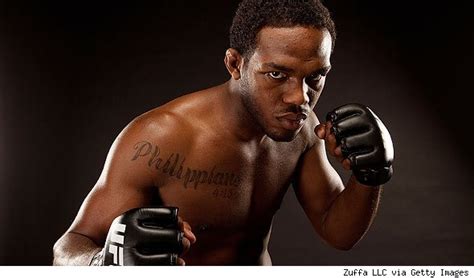
Decoding Jon Jones' Philippians Tattoo: Font & Meaning
Decoding Jon Jones’ Philippians Tattoo: Font & Meaning
Hey fight fans, ever wondered about the ink adorning the body of UFC legend Jon Jones? Well, today we’re diving deep into one of his most prominent tattoos: the Philippians scripture. Not just the words, but the font itself, the placement, and of course, the profound meaning behind it all. So, grab a seat, maybe a protein shake, and let’s get into the world of “Bones” and his body art. We’re going to break down the Jon Jones Philippians tattoo font , its significance, and why this particular biblical verse resonates with the champ. This is going to be epic, guys!
Unveiling the Scripture: Philippians 4:13
Alright, let’s start with the basics. The Philippians tattoo on Jon Jones’ body features the famous verse, Philippians 4:13 . You might have heard it before; it’s practically a staple in the world of faith and motivation. The scripture reads: “I can do all things through Christ who strengthens me.” Boom! Right there, you’ve got a powerhouse of a statement. It’s a declaration of strength, resilience, and unwavering belief in a higher power. It’s the kind of verse that athletes, especially those in a brutal sport like MMA, often cling to. For Jon Jones, this verse isn’t just a random quote; it’s a core principle guiding his life and career. He carries it with him, quite literally, wherever he goes.
Now, let’s talk about the context. The Book of Philippians, written by the Apostle Paul, is a letter of joy and encouragement. Paul wrote it while imprisoned, which gives the verse an even deeper meaning. It’s not just about physical strength; it’s about the ability to overcome adversity with faith and grace. This resonates perfectly with Jones’ journey. He’s faced incredible highs and lows throughout his career, including legal issues and personal demons that have tested him relentlessly. The verse serves as a constant reminder that he can persevere, no matter the obstacle. That’s a powerful message, and it’s something that his fans also take as a source of motivation. Seeing the Jon Jones Philippians tattoo font reinforces his commitment to faith, which is an important aspect of his public persona. The font is an important component of the message he is trying to portray to his fans and the world.
The Significance of Philippians 4:13
Let’s get even deeper into this. The verse is a testament to the belief that through faith, anything is possible. It’s a message of empowerment, telling believers that they have the strength within them to overcome any challenge. For an athlete like Jon Jones, this is more than just a biblical quote. It becomes a mantra, a source of unwavering belief in his abilities, even when faced with adversity. The verse reminds him that his strength is not solely dependent on his physical prowess, but also on his spiritual connection. Think about it: a fighter steps into the octagon, a place of intense pressure, where careers can be made or broken in a matter of minutes. The mindset required to compete at that level is extraordinary. This verse gives him the mental fortitude to push through, to keep going, even when he’s exhausted or hurt. It reinforces his belief in himself and his ability to achieve his goals. It is a symbol of strength.
This isn’t just about winning fights. It’s about personal growth. It’s about facing your demons, both inside and outside the ring. It’s about maintaining faith in the face of challenges. The Jon Jones Philippians tattoo font and verse become a constant reminder of these principles. It is a symbol that he carries with him, and a message he shares with the world. It’s a testament to his resilience, his faith, and his dedication to self-improvement. It’s about the journey, the struggles, and the ultimate victory over adversity. This verse has resonated with many people, not just athletes. It is a testament to the fact that faith can move mountains.
Examining the Font: What Does it Say?
Now, let’s zoom in on the Jon Jones Philippians tattoo font . The specific typeface used for the tattoo is a crucial element in understanding the overall message. Unfortunately, the exact font has not been officially revealed, but we can make some observations. It appears to be a classic serif font , possibly with some slight modifications to give it a unique edge. Serif fonts, characterized by the small strokes at the ends of the letters, often convey a sense of tradition, strength, and timelessness. It’s a good choice, guys. It isn’t loud or flashy. It’s a clean, readable font that allows the message to take center stage. The style is clear, not overly stylized, ensuring that the words are easy to read and understand. This choice of font reflects the importance of the message itself. Jones isn’t trying to make a bold aesthetic statement; he’s emphasizing the scripture’s meaning. The clarity of the font ensures the verse’s accessibility. A fancy, elaborate font might be beautiful, but it could also distract from the profound message. This is not the case for Jon Jones Philippians tattoo font .
Think about it this way: the font is the messenger’s attire. It should be appropriate and convey respect for the message it carries. A simple, clean font does just that. It respects the sacred nature of the verse and allows the words to speak for themselves. The font also likely reflects Jones’ personal preference. He’s a man who values substance over style. He’s about what the words say , and not just what they look like. This simple approach speaks volumes about his character. It’s a way of saying, “This is what matters.” The verse’s impact is not diminished by the font. Instead, the font complements the message, making it clear and impactful.
Font Characteristics and Interpretations
Let’s break down some of the font’s potential characteristics. The use of a serif font itself suggests a connection to tradition and a grounding in core values. The boldness of the font (or lack thereof) influences how the message is received. A slightly bolder font may indicate a strong conviction. The spacing between the letters is also essential. Well-spaced letters improve readability, while also lending an air of formality. The Jon Jones Philippians tattoo font is meant to be easily legible and have a timeless appeal. It’s a classic choice. While it’s not possible to definitively determine the precise font used without consulting the tattoo artist, the general characteristics provide valuable insight into the overall message Jones aims to convey. The font choices often reveal someone’s intention. The choice of a classic font also speaks to Jones’ character. He’s a fighter, but he is also a person of faith, grounded in traditional values. This reflects his journey and provides motivation for his fans. The simple font choice doesn’t distract. Instead, it invites the reader to focus on the text itself. The words are key, and the font is simply a vehicle. It’s not just about the look; it’s about the meaning. It is a statement.
Placement and Significance: Where Does it Sit?
Okay, so we know the verse and the font. Now, let’s talk about where this tattoo actually sits on Jon Jones’ body and why that location is significant. The specific placement of a tattoo is almost as important as the message itself. It says something about what a person wants the world to see, and also what they want to keep close. The exact location of the tattoo is also important. The Jon Jones Philippians tattoo font is typically placed in a spot that is frequently visible. The choice of location often amplifies the message, making it more personal and significant. It’s about ensuring the verse is always in sight. It’s a constant reminder of his faith and source of strength. The location is more than just an aesthetic choice; it’s an active decision. He is always seeing it. The tattoo location is a deliberate choice.
More specifically, the Philippians 4:13 tattoo is often located on his chest or shoulder. This placement is strategic for several reasons. First, it’s a visible location. It’s a statement, meant to be seen. Second, the chest area is close to the heart, symbolizing that this verse is a core belief. It is a direct reflection of Jones’ heart and soul. The shoulder placement offers a similar level of visibility. It also underscores the importance of the scripture in his life. Both are positions that are easily seen by himself and others. This means the message is always in his awareness. The placement choice also highlights its importance. It’s a way of saying: “This is something I want to carry with me always.” It reinforces the impact the verse has on his life and career. This choice is not accidental. The placement of the Jon Jones Philippians tattoo font is important. It reveals how highly Jones values the message of strength. The location is an active statement.
Placement and Personal Meaning
Let’s get even deeper into the meaning behind the placement. The location of the tattoo is also a personal choice. It’s a physical reminder that is always there. It’s an easy visual prompt. When he’s in a fight, it’s there to remind him that he is strong through faith. It offers a sense of comfort and support. When he is outside the octagon, it’s a constant reminder of his goals. It’s a source of strength, even when he’s struggling with challenges. The Jon Jones Philippians tattoo font , placed in a prominent position, also signifies his commitment to his faith. It is a very public declaration. The tattoo is an everyday sign of his belief. The placement is designed to keep him focused. This serves as a source of strength and inspiration. His faith is a significant part of his identity. The tattoo is the embodiment of his values. This deliberate choice underlines his belief. It’s a way of expressing his faith outwardly.
The placement adds an extra layer of meaning to the verse. The location is not just about aesthetics; it’s about making a profound statement. It is a way of reminding himself of the promise of strength. It is a reminder of the message to him. This placement is a constant affirmation. It is something he can see every day. This deliberate placement offers encouragement. This is not a passive choice. The placement is significant and the message is clear. It reinforces his strength. The location is a constant statement to all.
Beyond the Octagon: The Broader Impact
Okay, so we’ve covered the verse, the font, and the placement. But let’s zoom out and consider the broader impact of the tattoo. The Jon Jones Philippians tattoo font does more than just represent his personal faith. It also has a powerful effect on his fans and the wider world. It inspires many. It has become a symbol of resilience, and it resonates with a wide audience. It transcends the sport. For his fans, the tattoo serves as a source of inspiration. It motivates them to overcome their own challenges. It shows that even in the face of adversity, it’s possible to find strength. It provides hope. It encourages faith. The tattoo is a symbol of faith for the world.
His openness about his faith makes him relatable. He demonstrates it through his actions, both inside and outside the ring. This is a very powerful message. It humanizes him. He is not just a fighter. He is a person who has struggled, grown, and found strength in his faith. This message resonates with many. It shows that there is hope. It is a source of strength. His tattoo is a declaration of faith. It extends to people of all backgrounds. It is a source of hope and encouragement. This message is accessible to everyone.
Inspiration and Motivation for Fans
For his fans, the Jon Jones Philippians tattoo font serves as a constant reminder of the possibility of overcoming any challenge. Seeing the tattoo inspires them to pursue their goals with unwavering determination. The tattoo helps his fans to be resilient. It reminds them that through faith, anything is possible. It’s more than just a tattoo; it’s a message of hope. The choice to display this particular verse is an act of vulnerability. It’s a way of sharing his core beliefs. His fans see him as more than a champion. They see him as a symbol of hope. It humanizes him. It’s an inspiration to those struggling. It’s a symbol of hope for others. It has a real impact on people. The tattoo is a beacon of positivity. It offers real motivation.
The verse and font choices have become symbols for the fans. They are a reminder of faith. It motivates them to keep going. The tattoo, and the Jon Jones Philippians tattoo font , are not just for him. They are shared with all his fans. It brings a community together. It’s a source of mutual support. It is a symbol of strength. It has become a symbol for many. It is a testament to the power of faith and the impact Jones has on the world.
Conclusion: The Enduring Message
So, there you have it, fight fans! We’ve dissected the Jon Jones Philippians tattoo font , the meaning of the verse, and the significance of its placement. This isn’t just a tattoo; it’s a powerful statement of faith, resilience, and the unwavering belief in the power of Christ. It’s a reminder that even when facing the toughest battles, both inside and outside the ring, we can find strength and persevere. It’s a testament to the fact that faith can be a powerful force in our lives. So, the next time you see Jon Jones step into the octagon, remember the meaning behind the ink. Remember the verse, and the message it carries. It’s a story of struggle, faith, and the enduring power of the human spirit. Keep the faith, guys, and always remember: “I can do all things through Christ who strengthens me.”